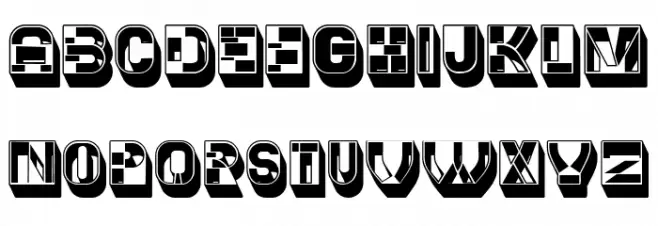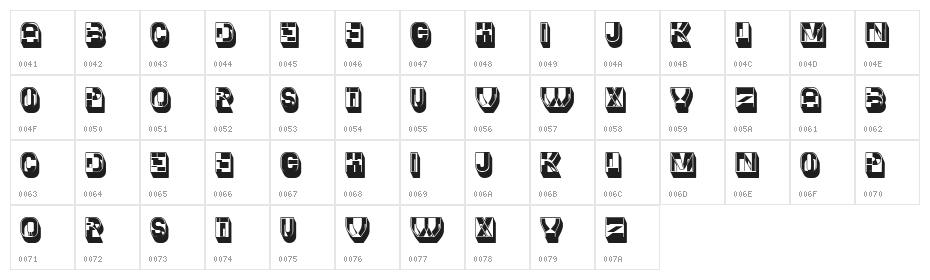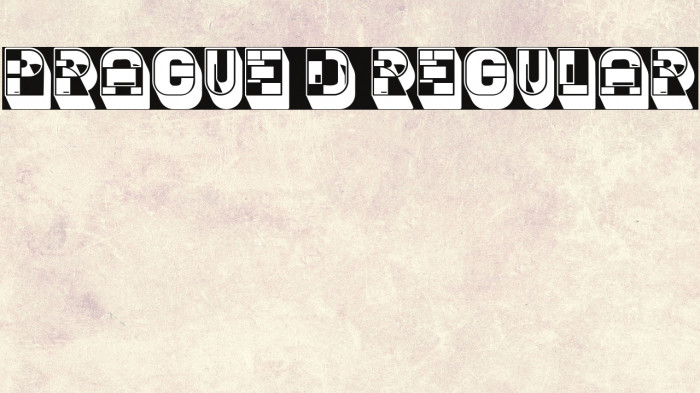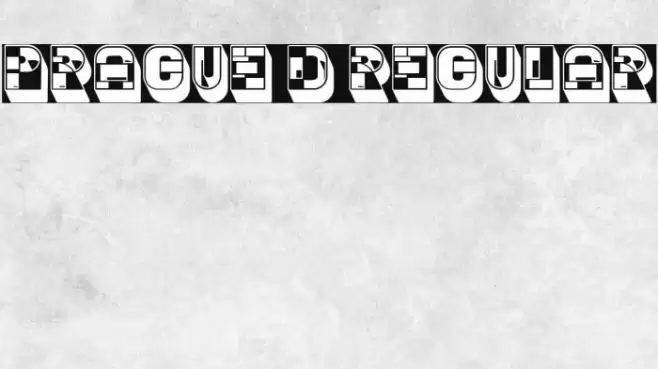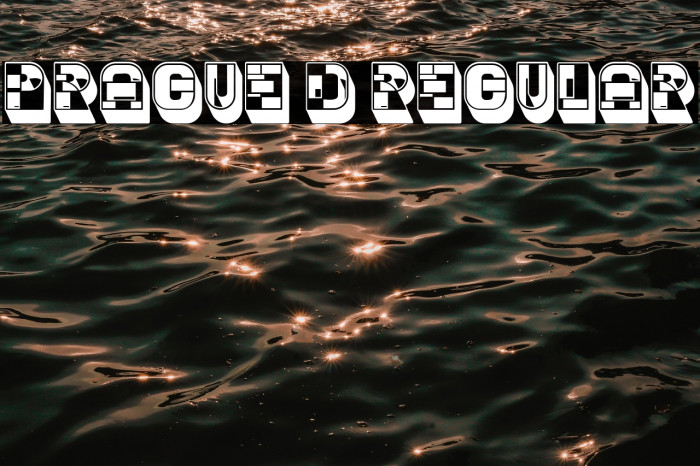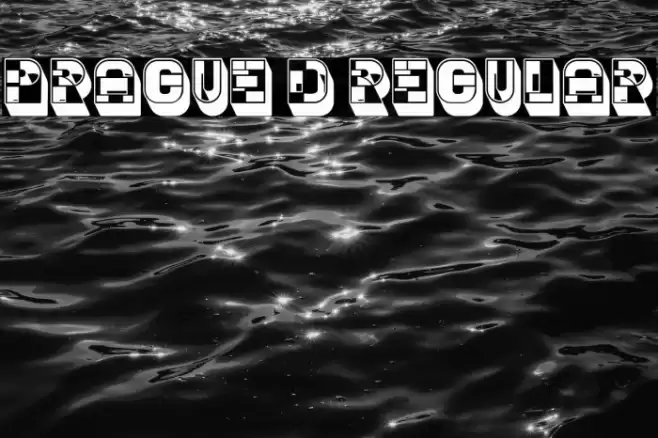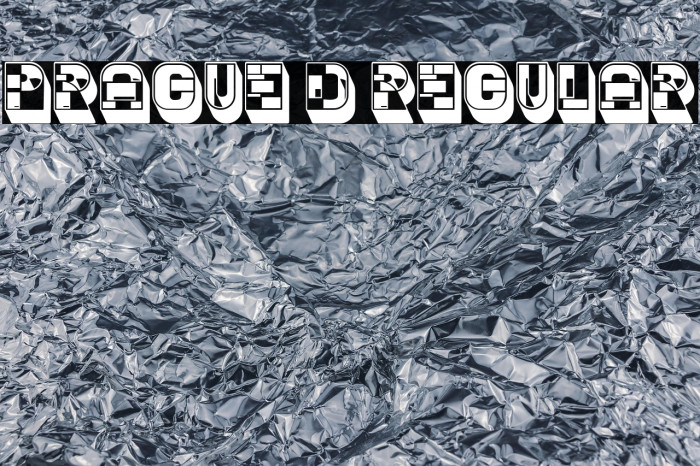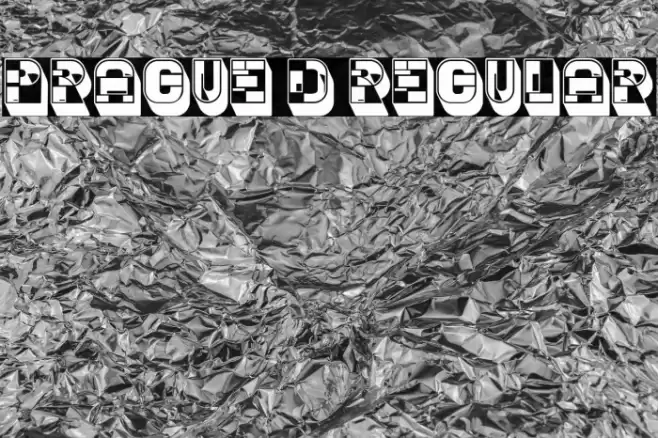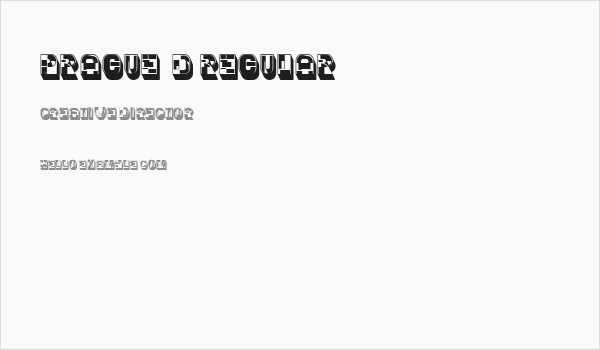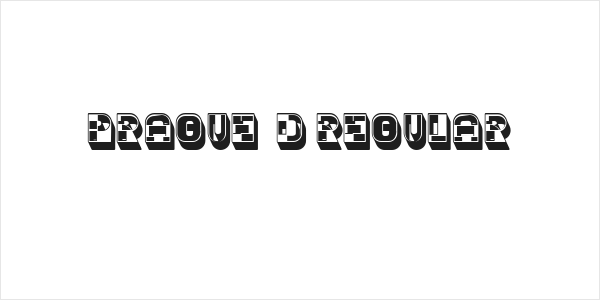
Prague 3D Regular Font
Prague 3D Regular Description
This font features a bold, three-dimensional design with a strong visual impact. The letters are constructed with a solid black fill and a white outline, creating a striking contrast that enhances the 3D effect. Each character appears to be extruded, giving the impression of depth and volume. The geometric shapes and sharp angles contribute to a modern and dynamic appearance. The font is highly decorative, making it suitable for attention-grabbing headlines and display purposes. Its unique style is characterized by a playful yet structured form, ideal for creative projects that require a bold statement.
| Proposed Projects | Ideal for posters, logos, branding, and any design needing a bold, eye-catching headline. |